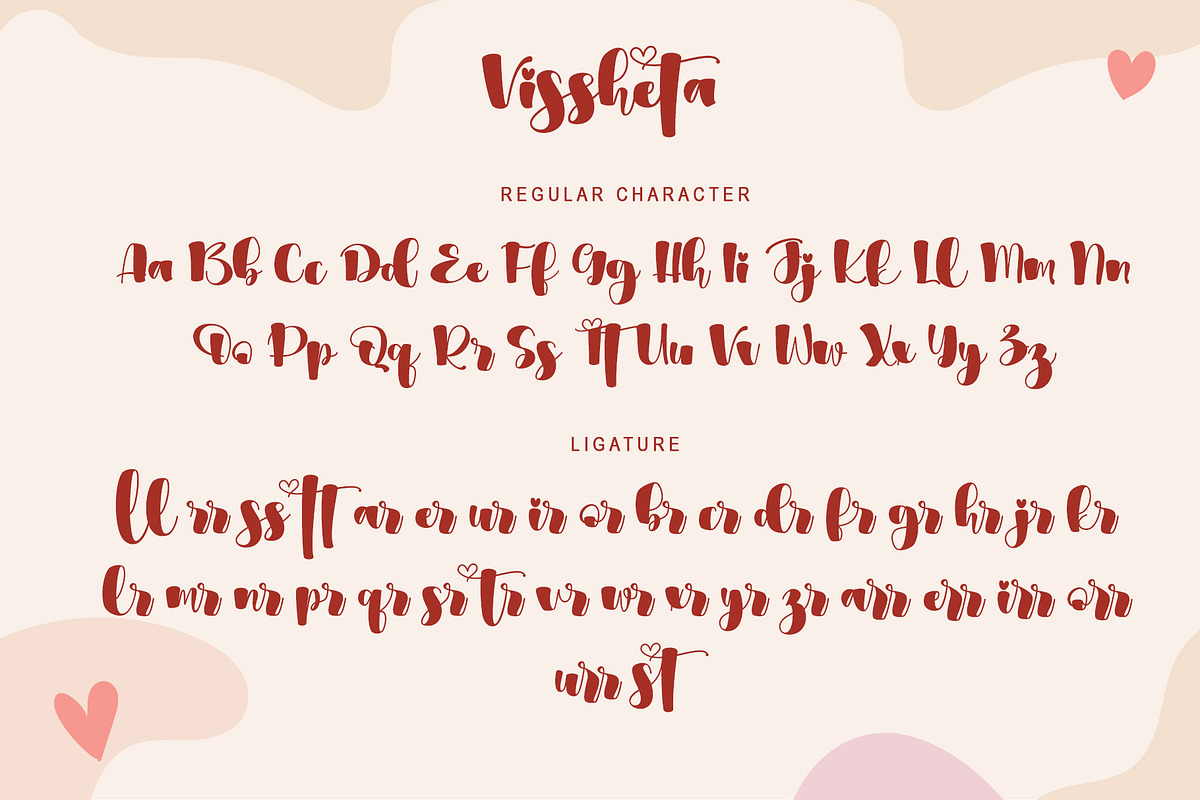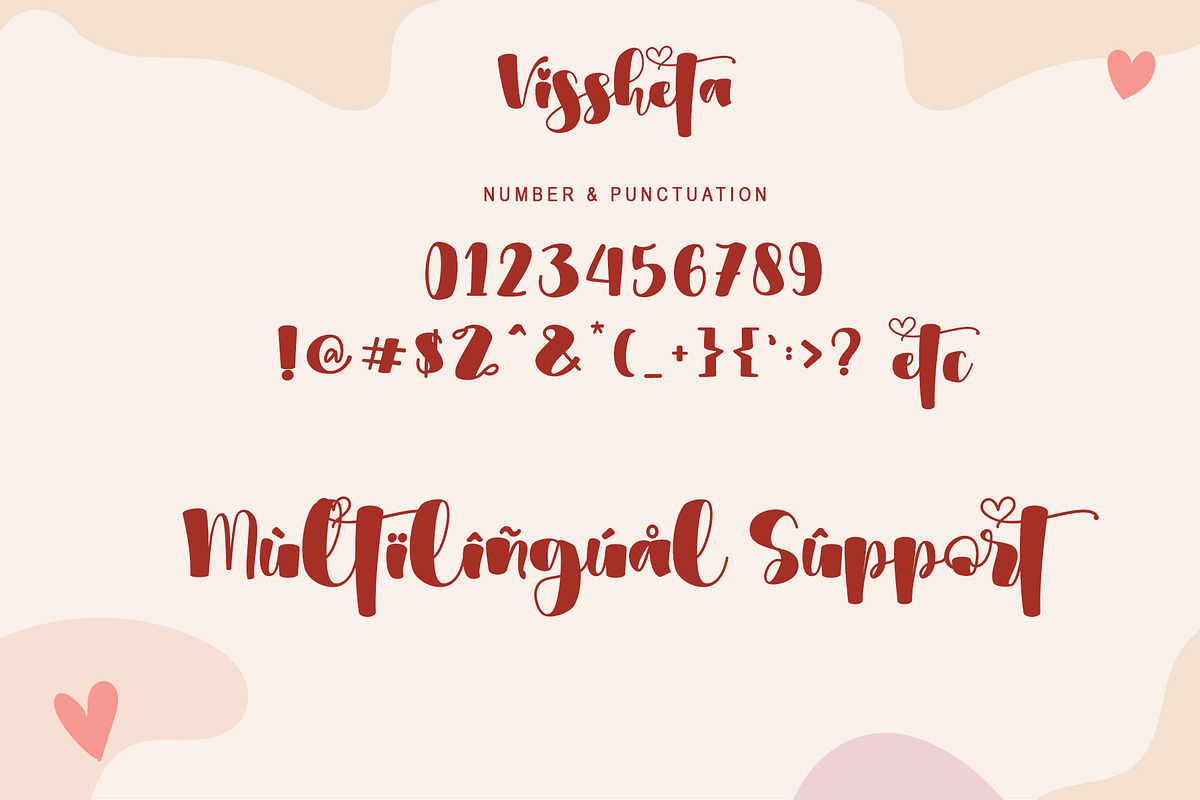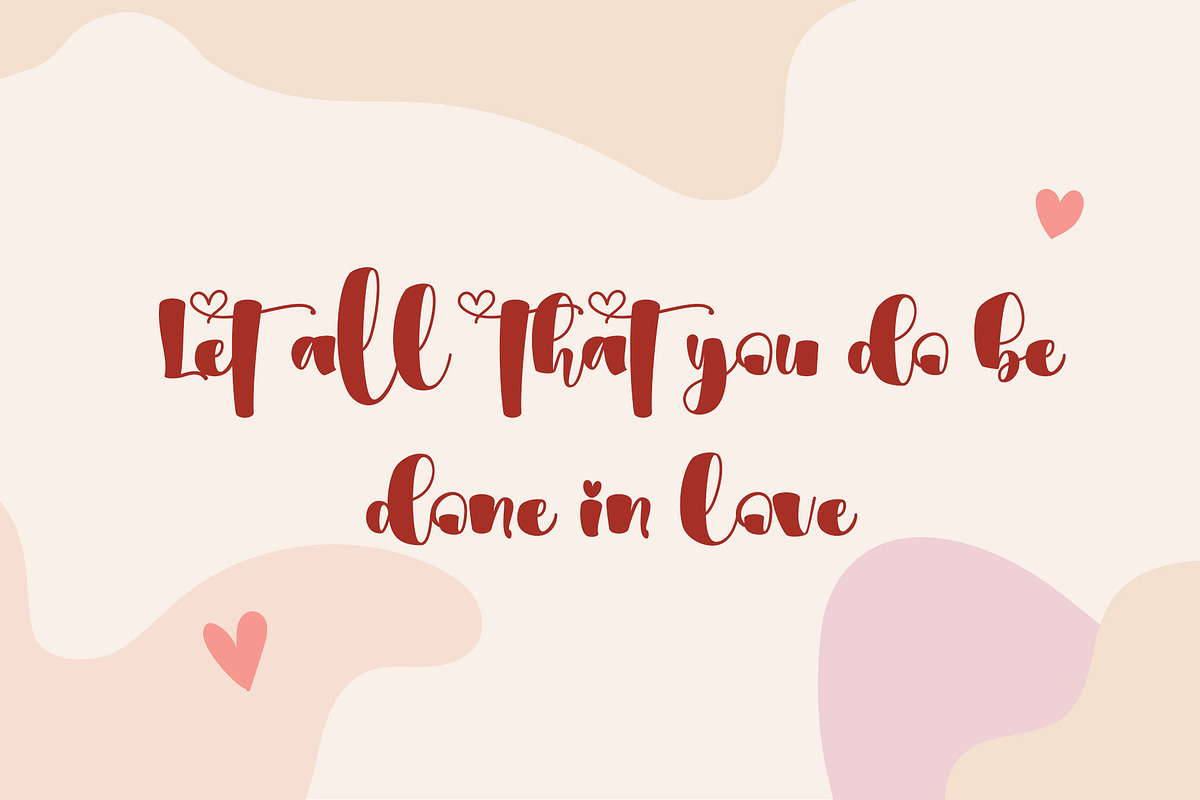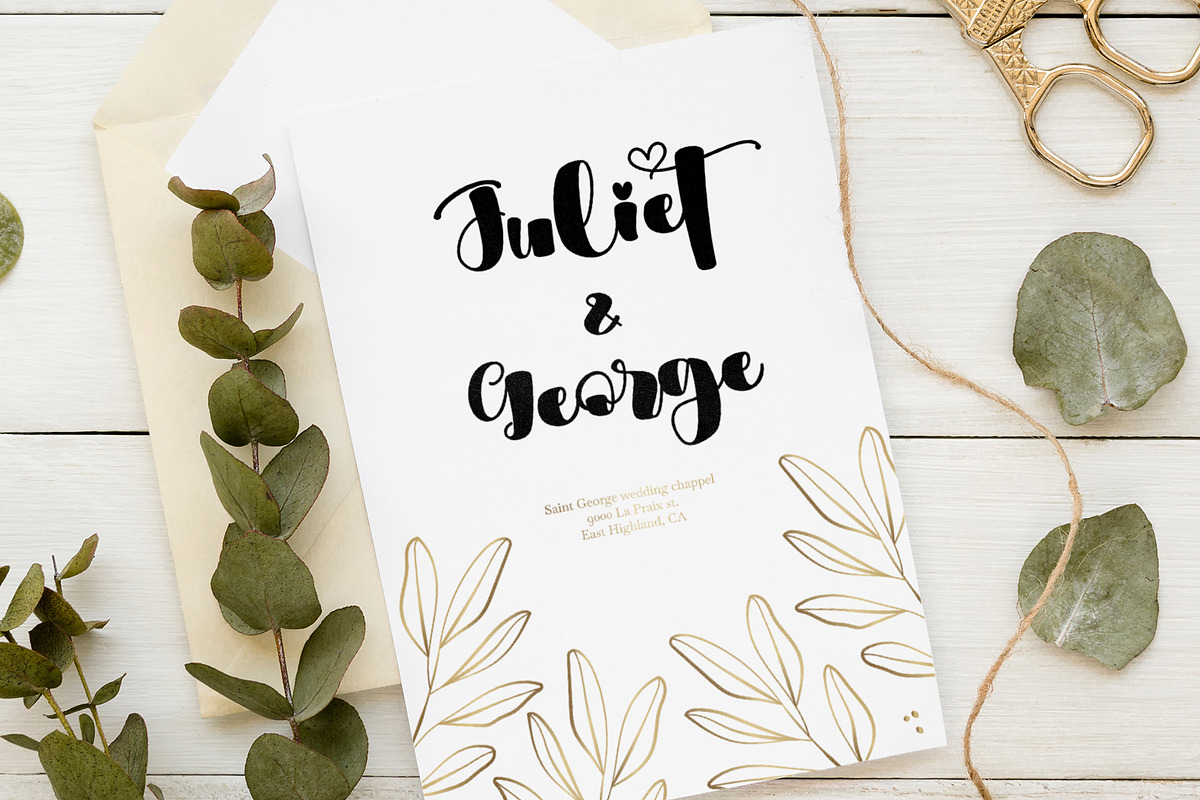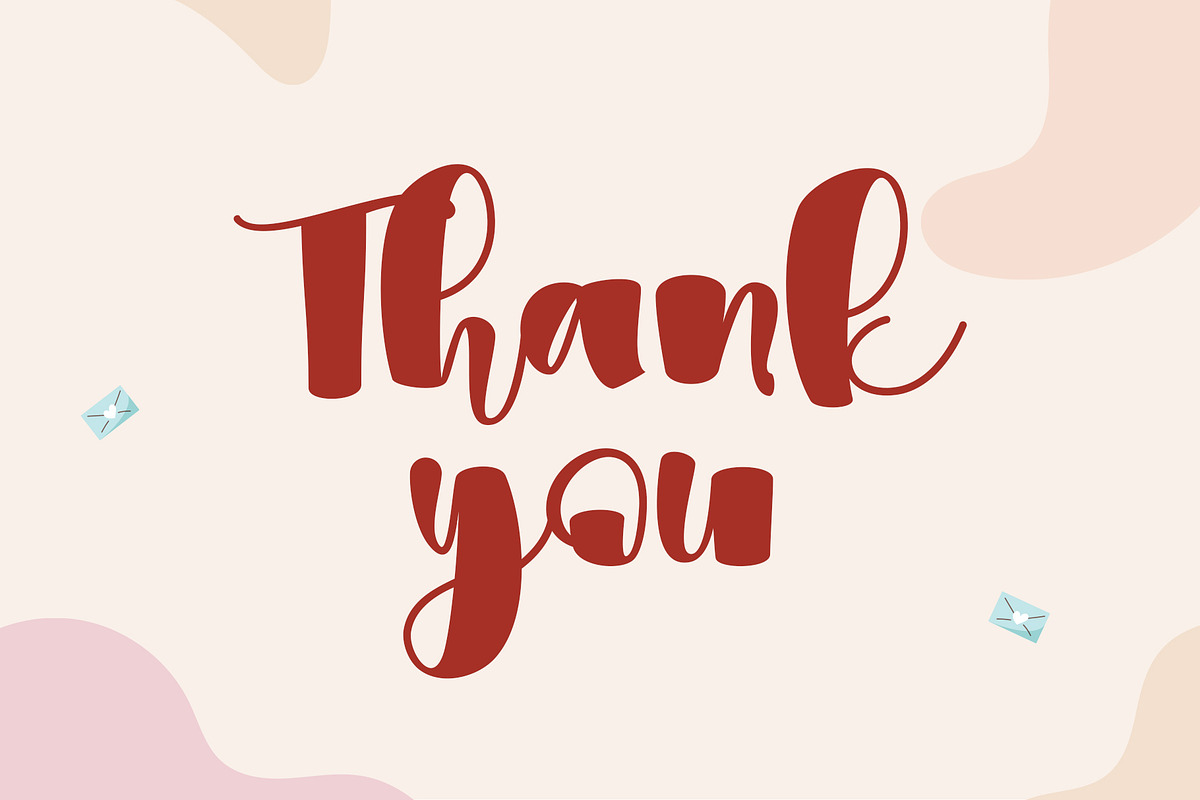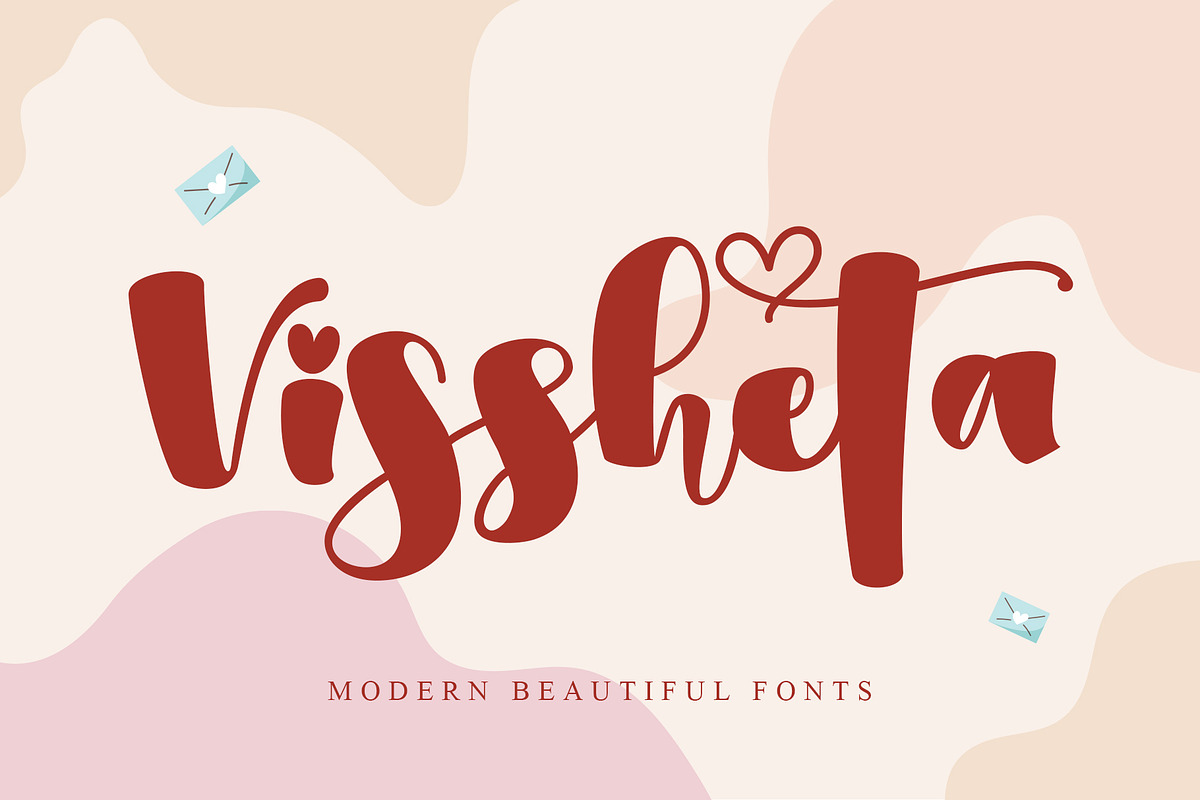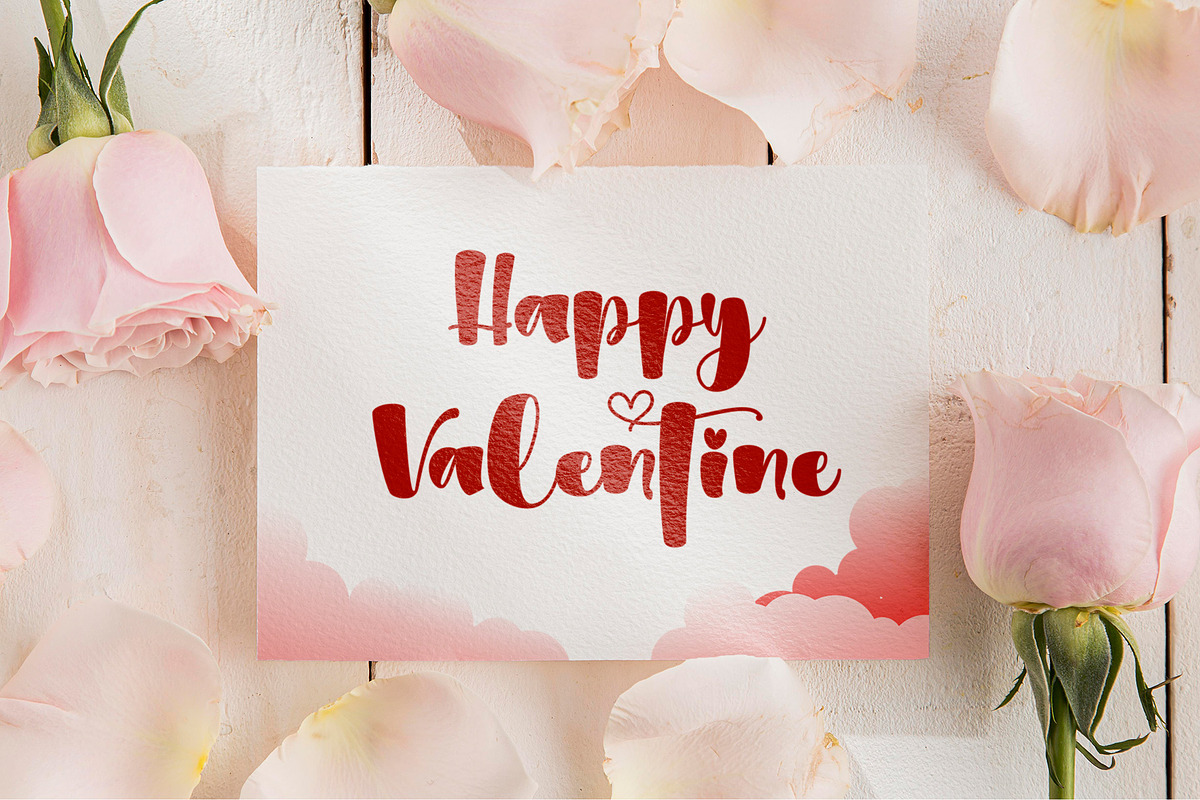
Vissheta
Vissheta is a fresh & modern script font. It has a bold cute style and will add an upscale to all your designs. This Font is perfect for many different projects such as logos & branding, invitations, birthday party, valentine, fashion, wedding, advertising, apparel, covers, books, business cards, greeting cards, branding, merchandise, invitations and handmade quotes, and more.
- Support multilingual; ä ö ü Ä Ö Ü ß ¿ ¡
- lowercase and uppercase letters